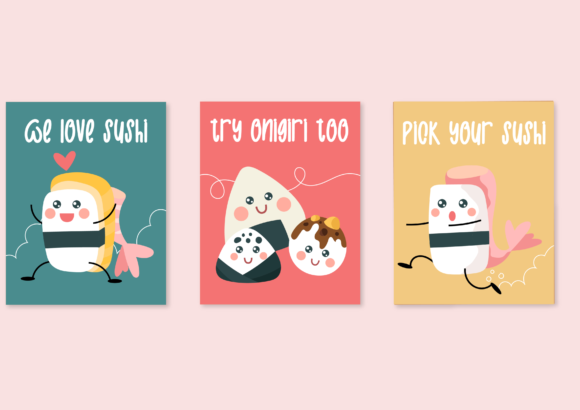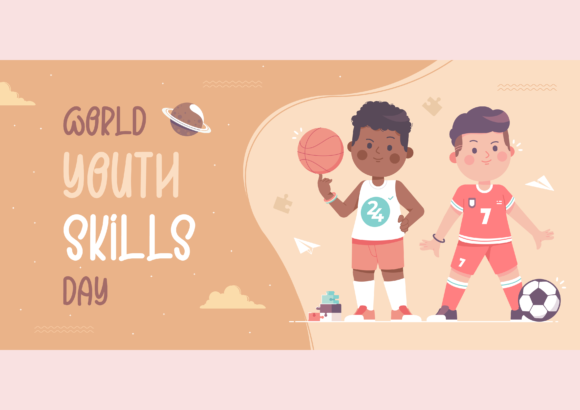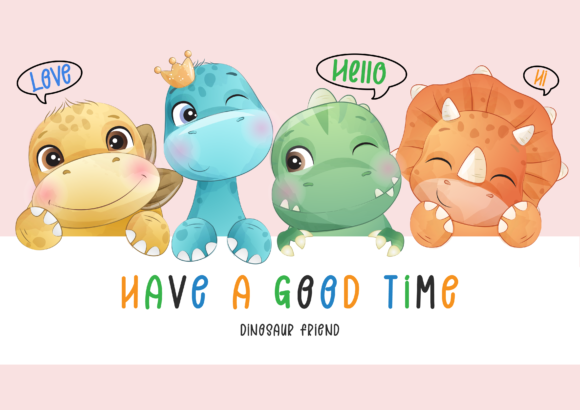
Introduction to Octopus Takoyaki Font
Octopus Takoyaki is a playful and cute handwritten font that can be used for all chalkboard quotes or teaching material.
Its authentic look will add a personal and realistic feel to your designs .
Key Features of Octopus Takoyaki Font